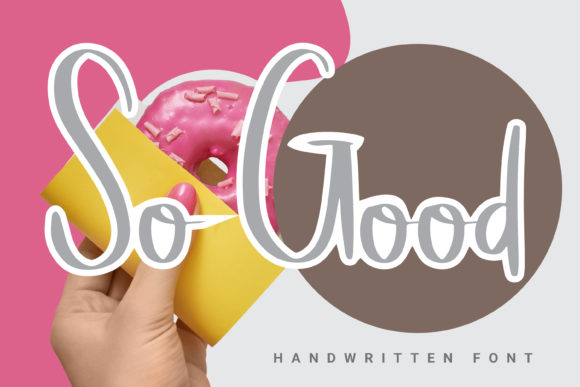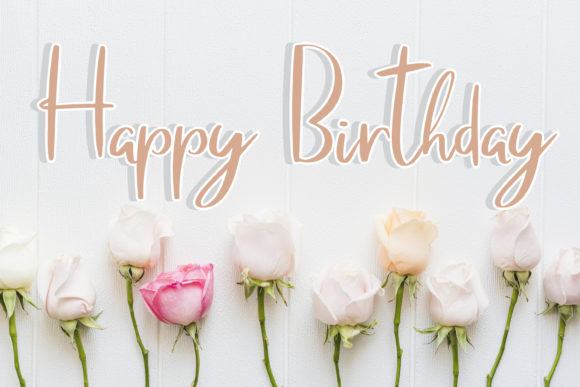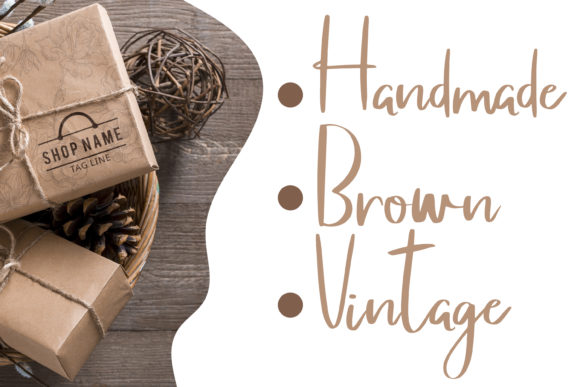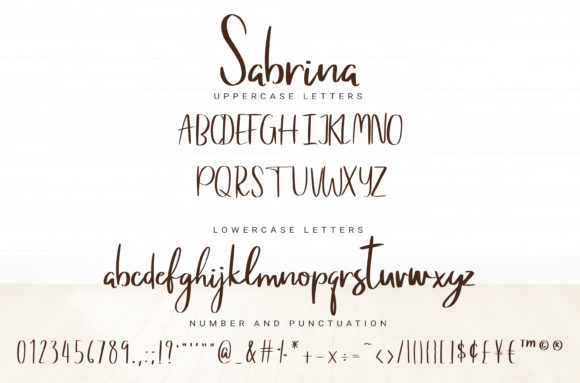
Sabrina Font
About Sabrina Font
Sabrina is a joyful handwritten font, carefully handcrafted to become a true favorite. Its casual charm makes it incredibly versatile, perfect for a wide variety of designs you wish to create!